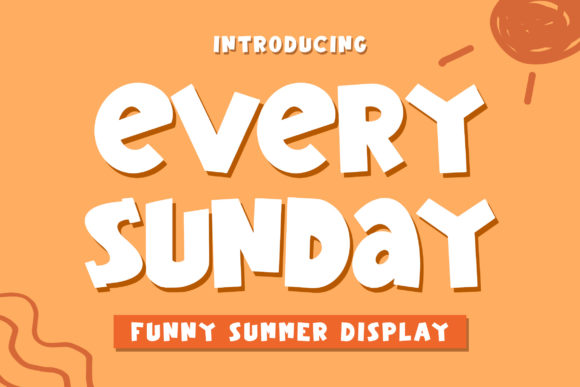
Dive into the world of Every Sunday Font, a display font family that radiates bold and thick letterforms, ready to transform your designs into captivating masterpieces. Step into a realm where youth meets joy, and every letter dances on the page with exuberance. Whether it's a festive party invitation or a cheerful summer gathering, Every Sunday Font is your perfect companion.
With Every Sunday Font, you'll find yourself immersed in a world of creativity, where every letter becomes a brushstroke, painting a picture of celebration and happiness. Let your imagination soar as you explore the unlimited possibilities that await.
But Every Sunday Font isn't just visually stunning; it's also incredibly versatile. Its bold and thick strokes give it a strong presence, while its playful and youthful energy adds a touch of whimsy. Whether you're designing posters, flyers, social media graphics, or even logos, Every Sunday Font will elevate your designs to the next level.
But what truly sets Every Sunday Font apart is its PUA encoding. This magical feature allows you to access a world of amazing glyphs and ligatures with ease. Unleash your creativity and let your designs shine with unique characters and stunning letter combinations.
So, if you're ready to inject a dose of vibrancy and joy into your designs, look no further than Every Sunday Font. Let this font family take you on a journey of artistic exploration, where every project becomes a celebration and every design a masterpiece. Embrace the spirit of Every Sunday and create something truly exceptional.